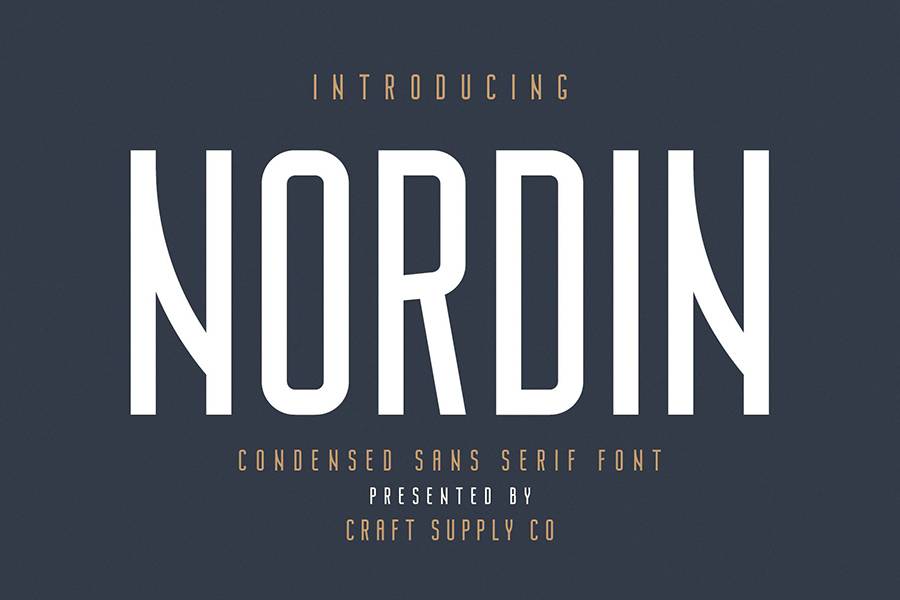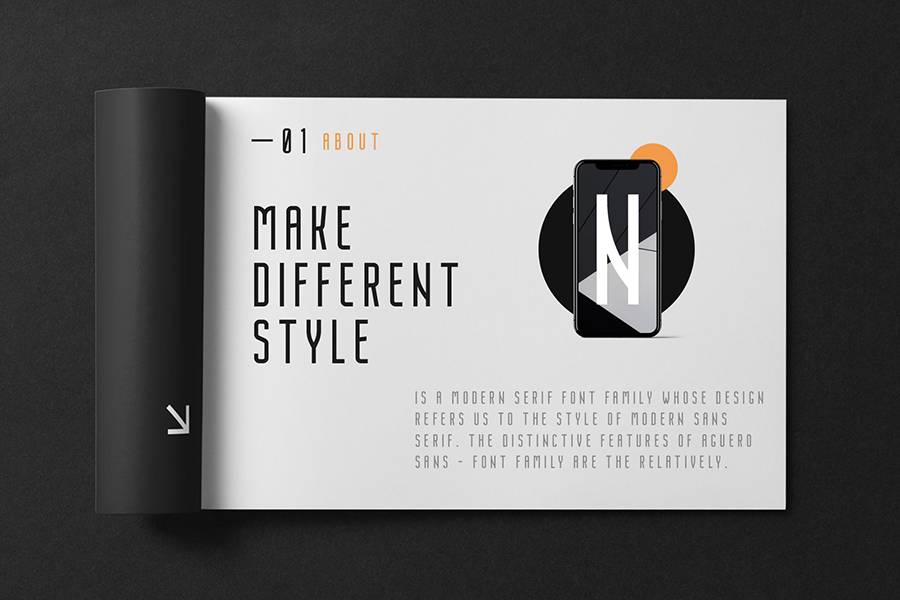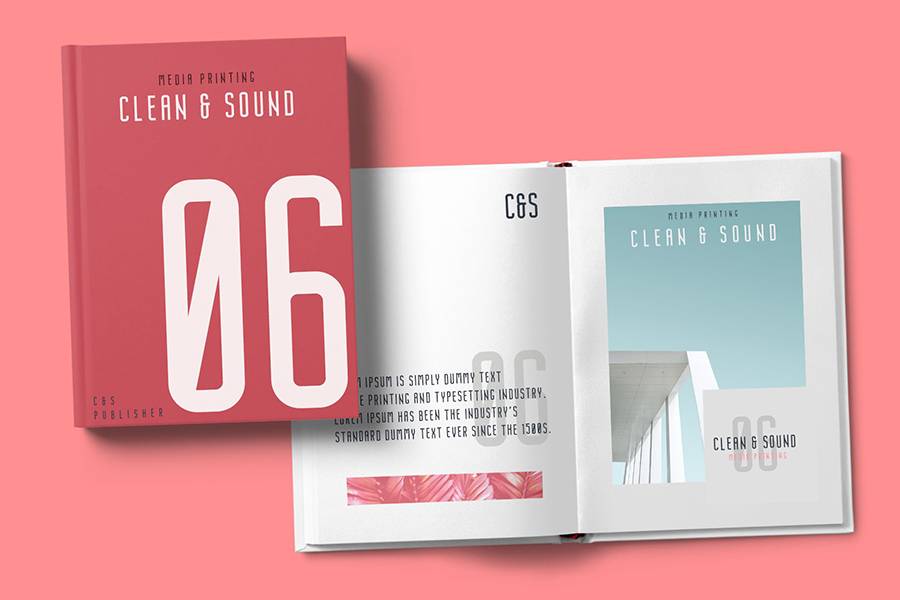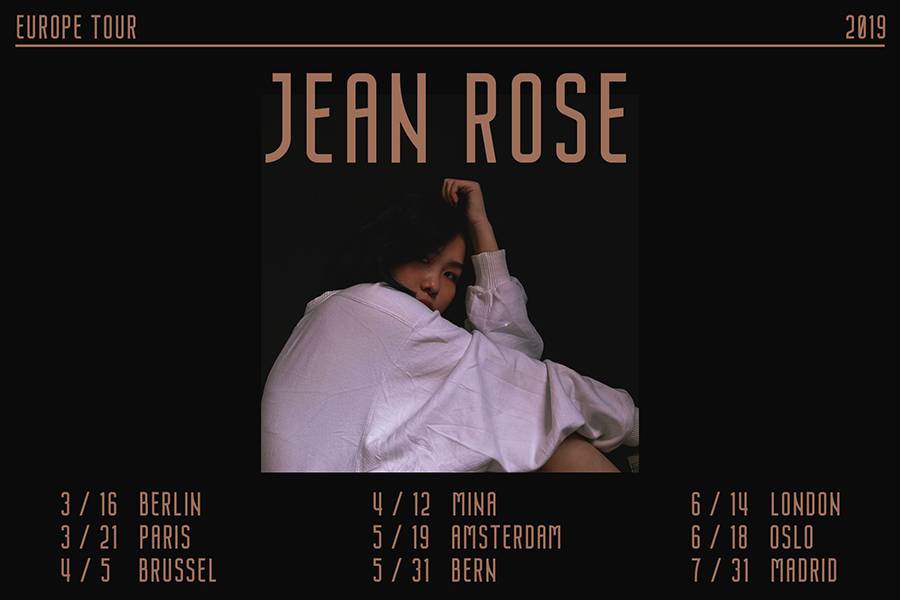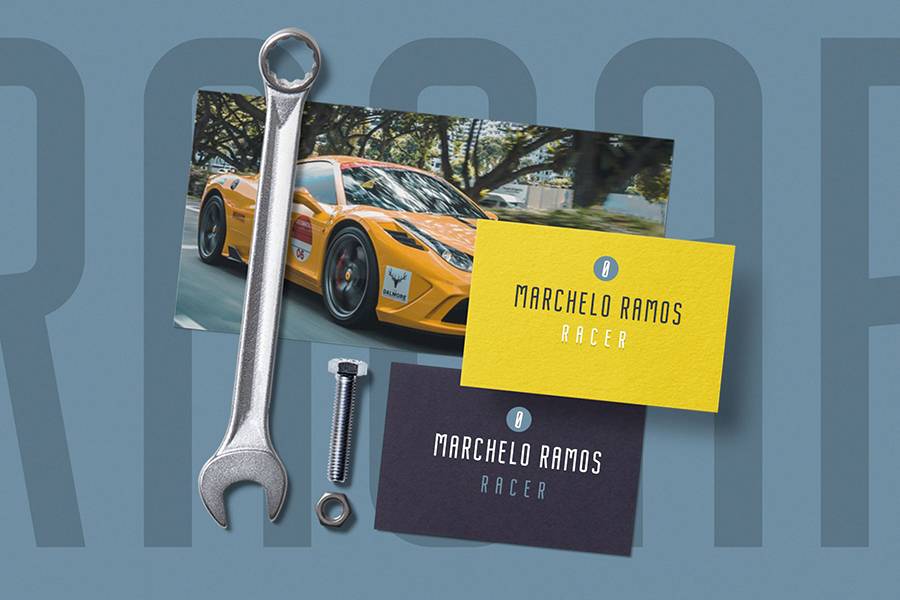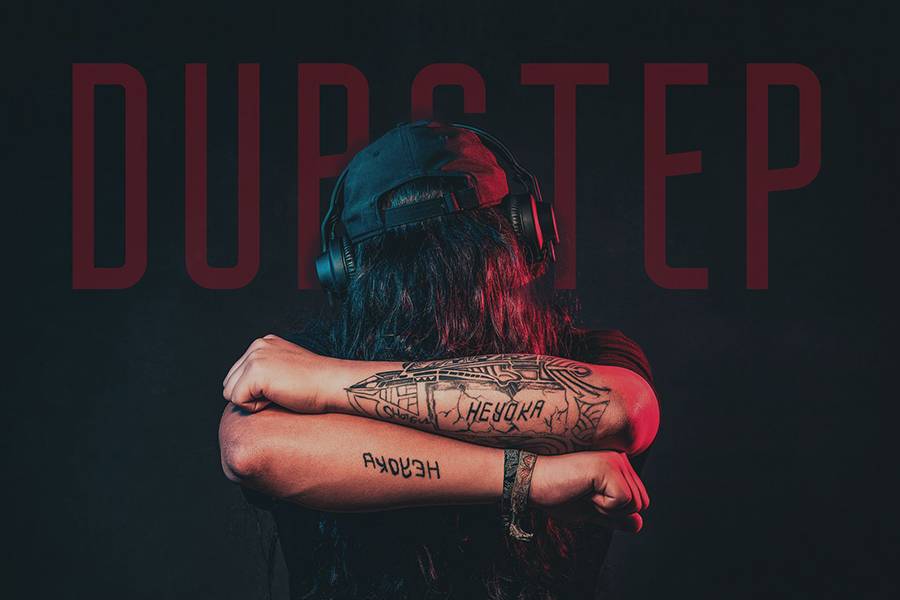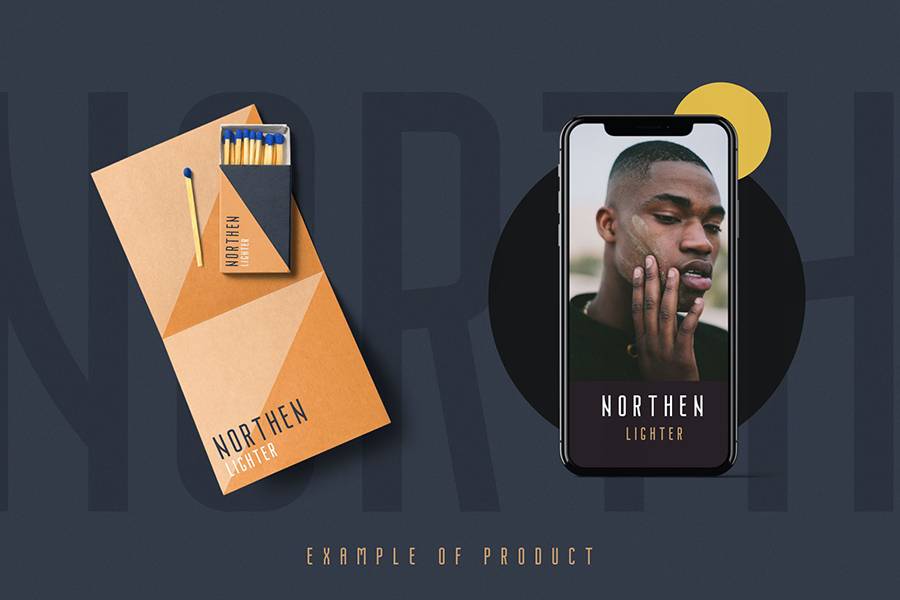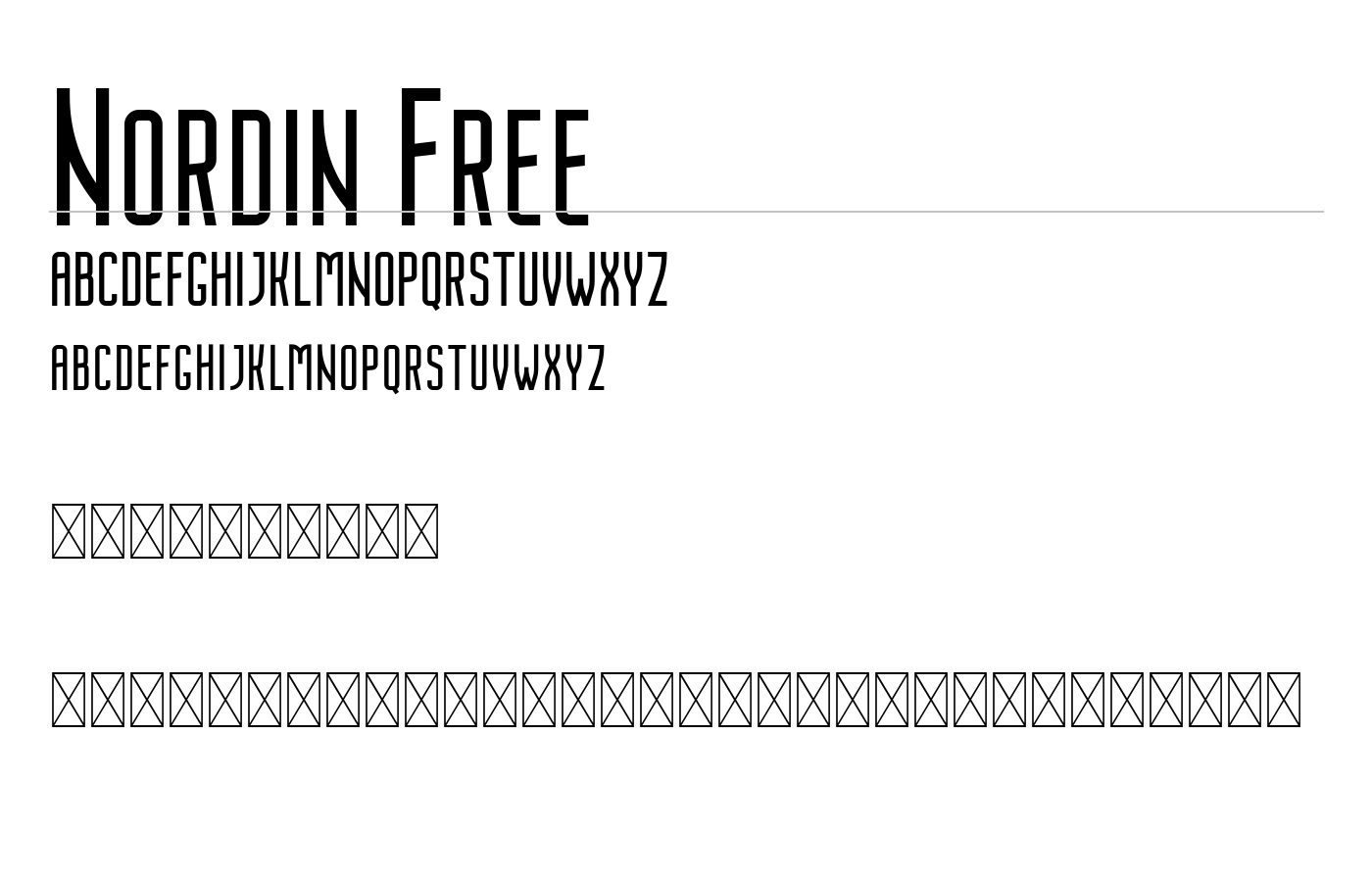
Nordin Sans Serif Demo is a sleek, narrow sans serif font characterized by its tall, condensed letterforms and consistent stroke weight. Its clean, geometric style with a modern and slightly futuristic feel makes it ideal for headlines, branding, and editorial designs that require a bold yet elegant presence. This font works well where space is limited but a strong, distinctive look is needed.
Nordin Sans Serif Demo
About Nordin Sans Serif Demo